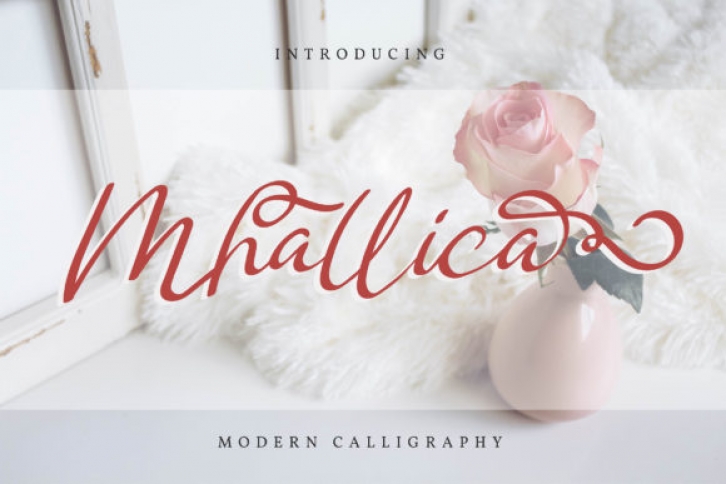
Mhallica is an incredibly distinct, delicate and timeless handwritten font. It looks stunning on wedding invitations, thank you cards, quotes, greeting cards, logos, business cards and every other design which needs a handwritten touch. This font is PUA encoded which means you can access all of the glyphs and swashes with ease!